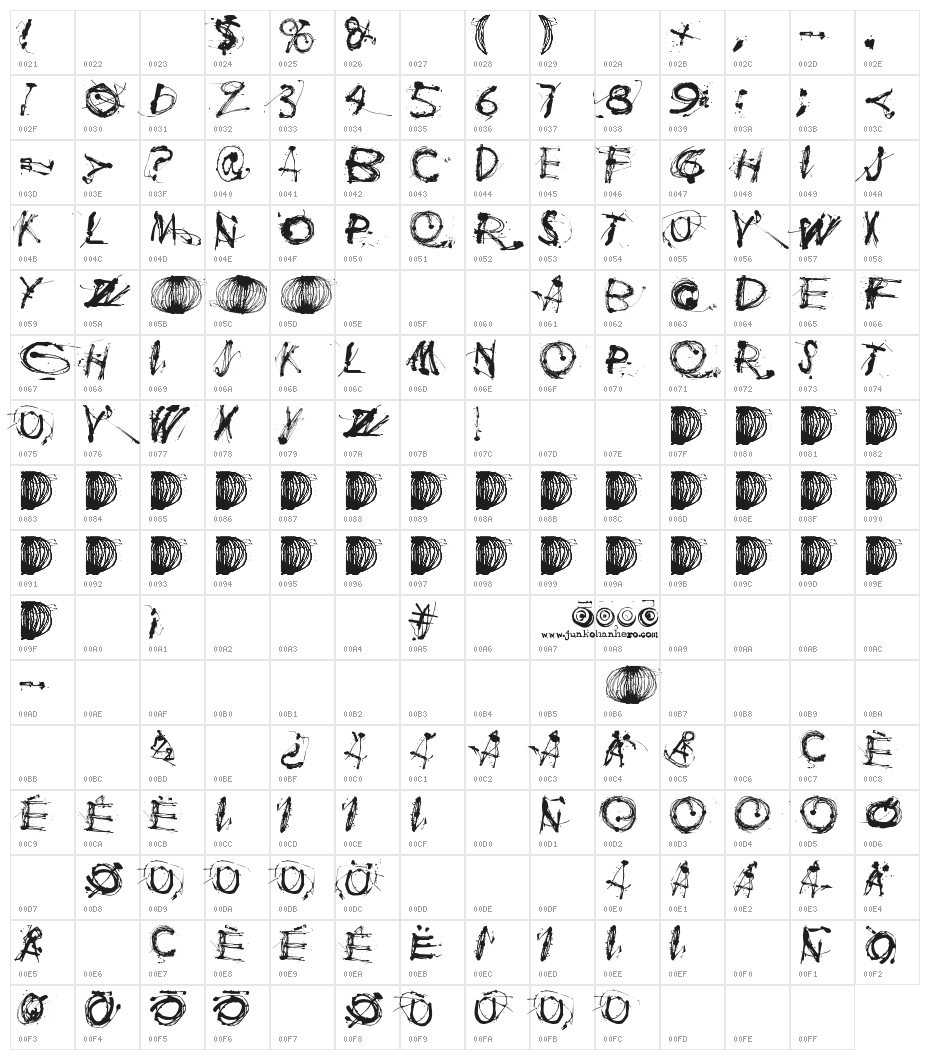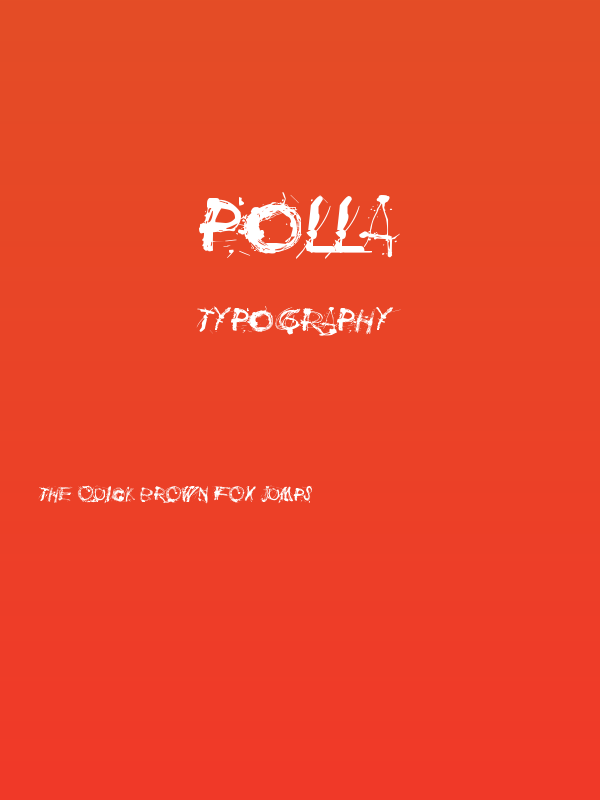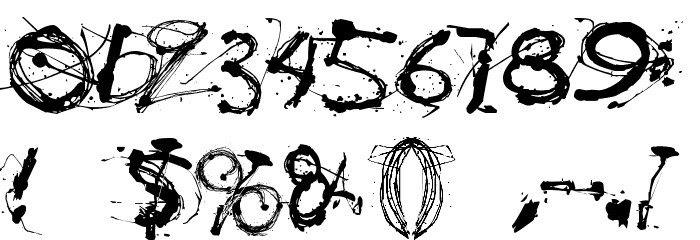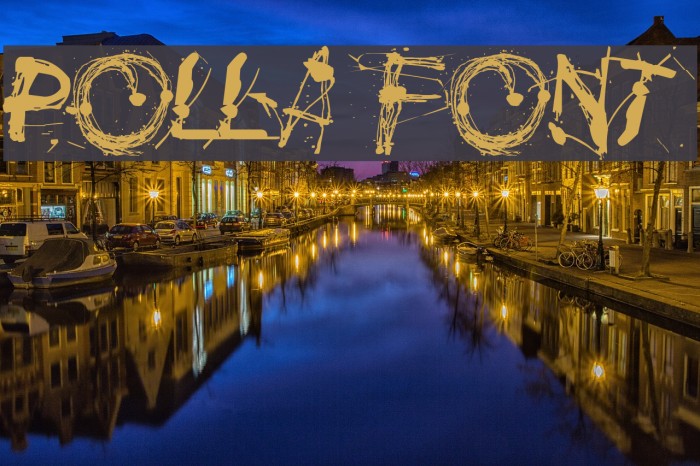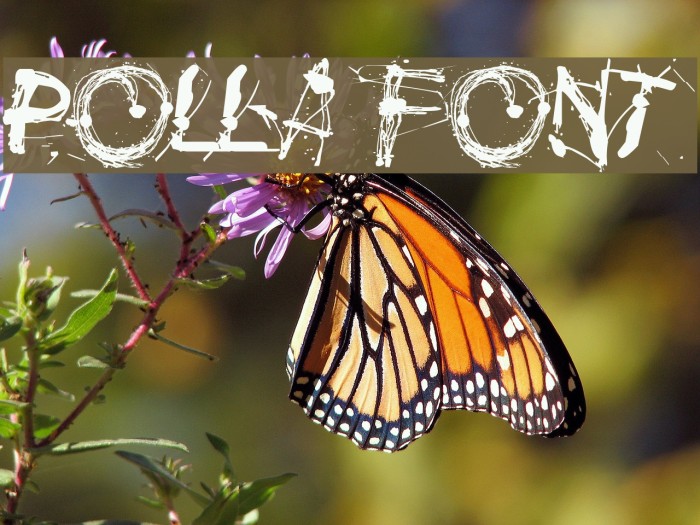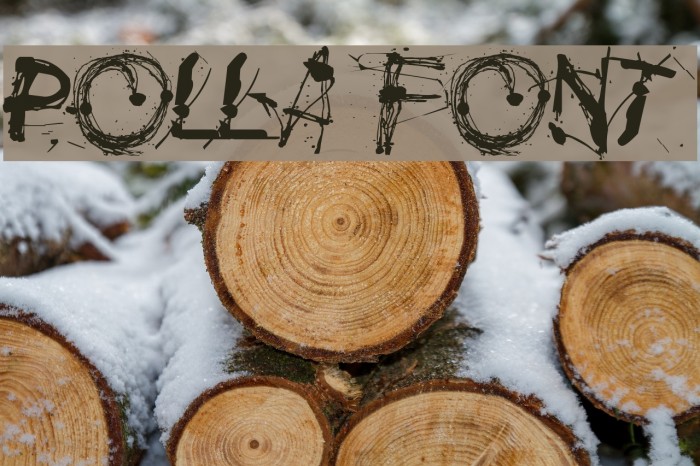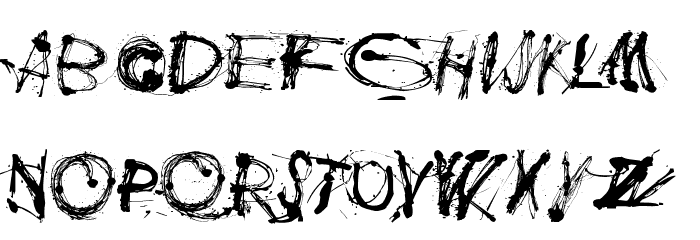
Polla Font
Polla Description
This font is a highly expressive and chaotic design, characterized by its splattered, grunge-like appearance. Each character seems to be crafted with an energetic brushstroke, giving it a raw and dynamic feel. The letters are irregular and vary in thickness, with some parts appearing as if they are dripping or splattered with ink. This creates a sense of movement and intensity, making it stand out as a bold artistic statement. The font's unique style is reminiscent of street art or graffiti, offering a rebellious and edgy aesthetic. It captures attention with its dramatic and unconventional form, making it suitable for projects that aim to convey a sense of urgency, creativity, or nonconformity.
| Overall Style | Modern, Grunge |
| Proposed Projects | Ideal for album covers, streetwear branding, event posters, or any project seeking an edgy, artistic vibe. |